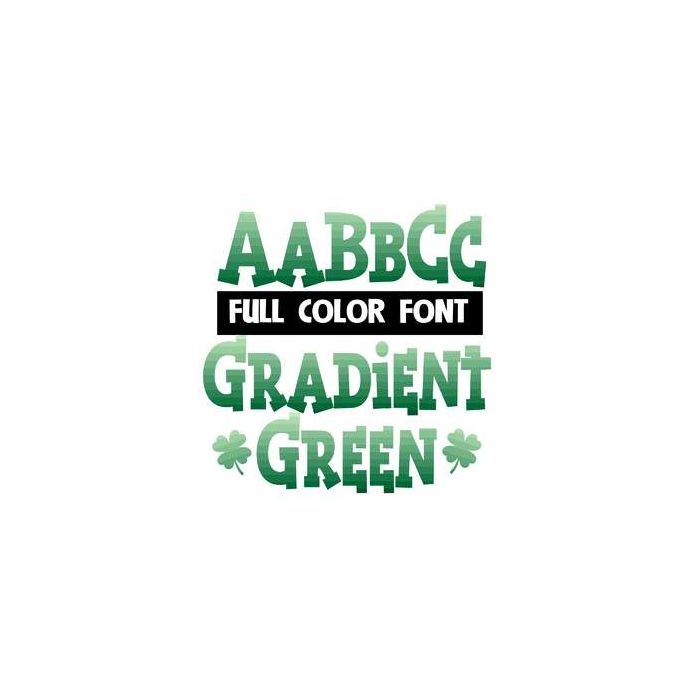
This full-color font features green gradients and triangle brackets that look like shamrocks. This font works best for titles, displays, posters and more. Please note color fonts will show as black in non compatible programs. This font type is compatible with Silhouette Studio